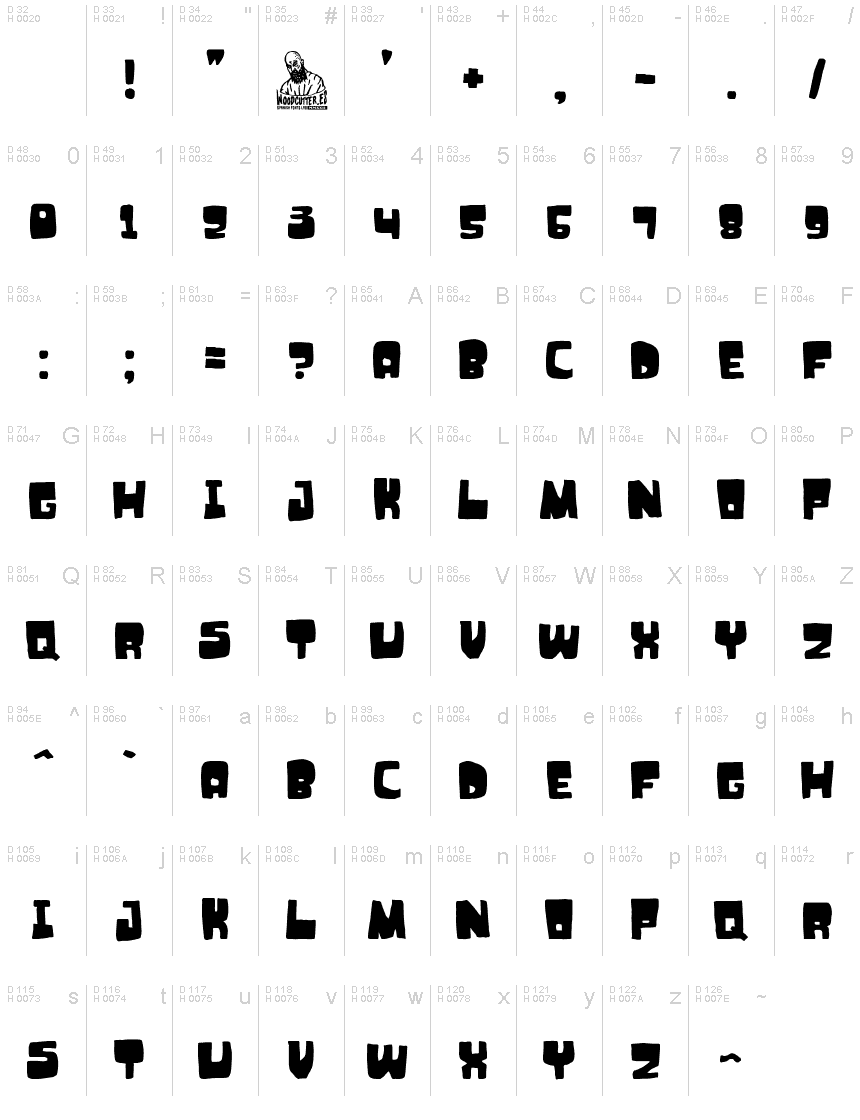
Monsieur des problèmes
Monsieur des problèmes is a playful and bold display font designed by Woodcutter Manero. Its cartoon-style lettering with extra-bold weight and semi-expanded width make it the perfect choice for projects that require a fun and eye-catching vibe. Whether you're designing a children's book cover, creating signage for a family-friendly business, or designing graphics for an animated video game, Monsieur des problèmes will add character to your project. With its unique personality and versatility, this font will bring life to any design it's used in.